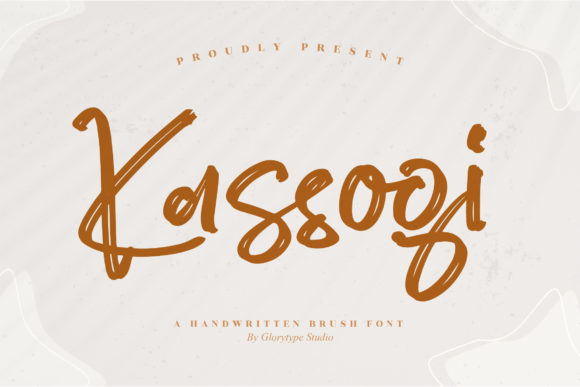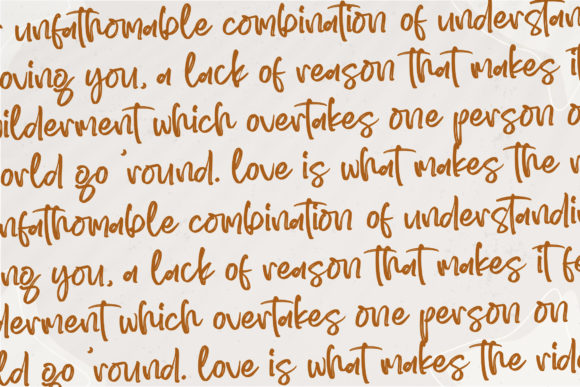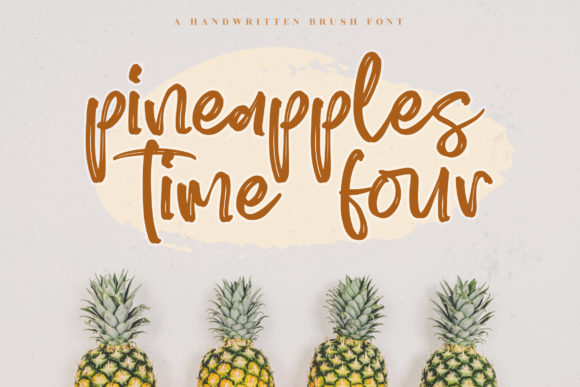
About Kassogi Font
Kassogi is a delightful and contemporary handwritten font that has been meticulously designed to bring out the best in your creative projects. With its careful craftsmanship, this font exudes elegance and sophistication, making it a perfect choice to elevate the overall aesthetic of your designs.
When applied to various design projects, Kassogi’s sweet and trendy appearance shines through. Its graceful letterforms are well-suited for a wide range of applications, from branding and logos to social media graphics and more.
For branding and logo design, Kassogi adds a touch of refinement and charm. Its unique handwritten style sets your brand apart, giving it a distinctive and memorable identity. Whether you’re working on a boutique fashion brand, a cozy coffee shop, or a contemporary skincare line, Kassogi lends an air of elegance and class that resonates with your target audience.
In print materials such as posters, flyers, and brochures, Kassogi brings a sense of sophistication and creativity. Its trendy and stylish vibe catches the eye and engages viewers, making it an effective choice for conveying information in an appealing and memorable manner.
Social media graphics become even more captivating with the addition of Kassogi. Whether you’re designing Instagram posts, Facebook covers, or Pinterest pins, the font’s sweet and modern handwriting adds a personal and relatable touch. It’s perfect for sharing quotes, announcing promotions, or showcasing products in a way that resonates with your followers.
Invitations and greeting cards come to life with Kassogi’s elegant and classy appeal. Whether it’s a wedding invitation, birthday card, or thank-you note, the font’s carefully crafted letterforms add a touch of warmth and sincerity. Your recipients will appreciate the thought and care that went into your designs.
Kassogi’s PUA encoding further enhances its versatility. You can easily access its wide range of glyphs and swashes, allowing you to customize and fine-tune your designs to perfection. This feature empowers you to create truly unique and personalized pieces that reflect your creative vision.
In conclusion, Kassogi is a sweet and trendy handwritten font that brings a sense of elegance and class to your design projects. Its versatility, attention to detail, and PUA encoding make it a valuable asset for a variety of applications, from branding to social media graphics, print materials, and more. With Kassogi, your designs are bound to exude a stylish and sophisticated charm that captures the hearts of your audience.